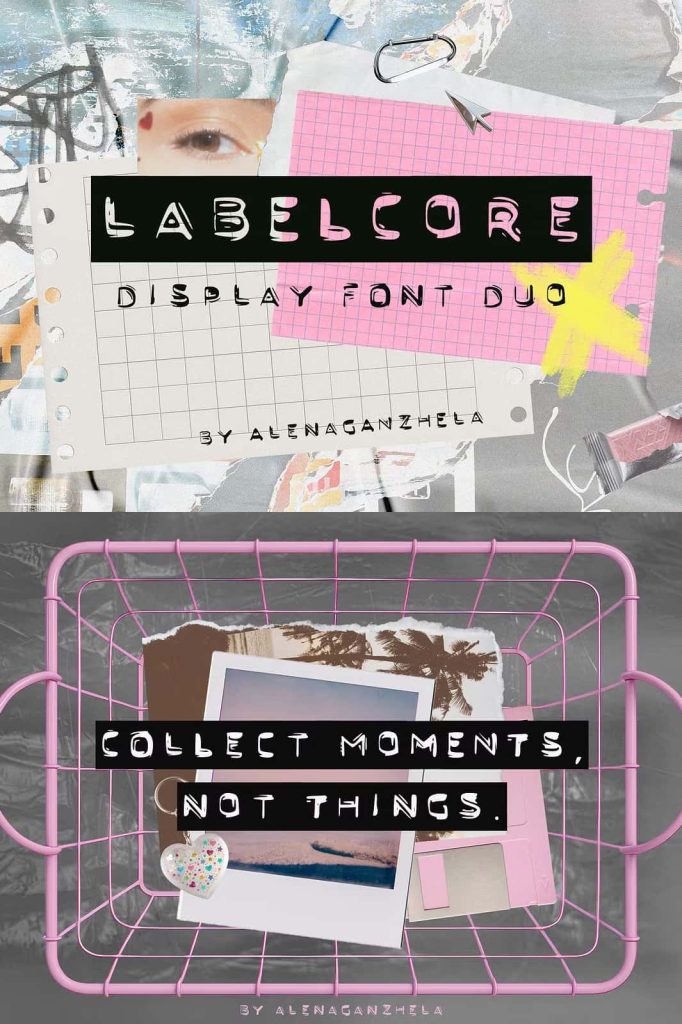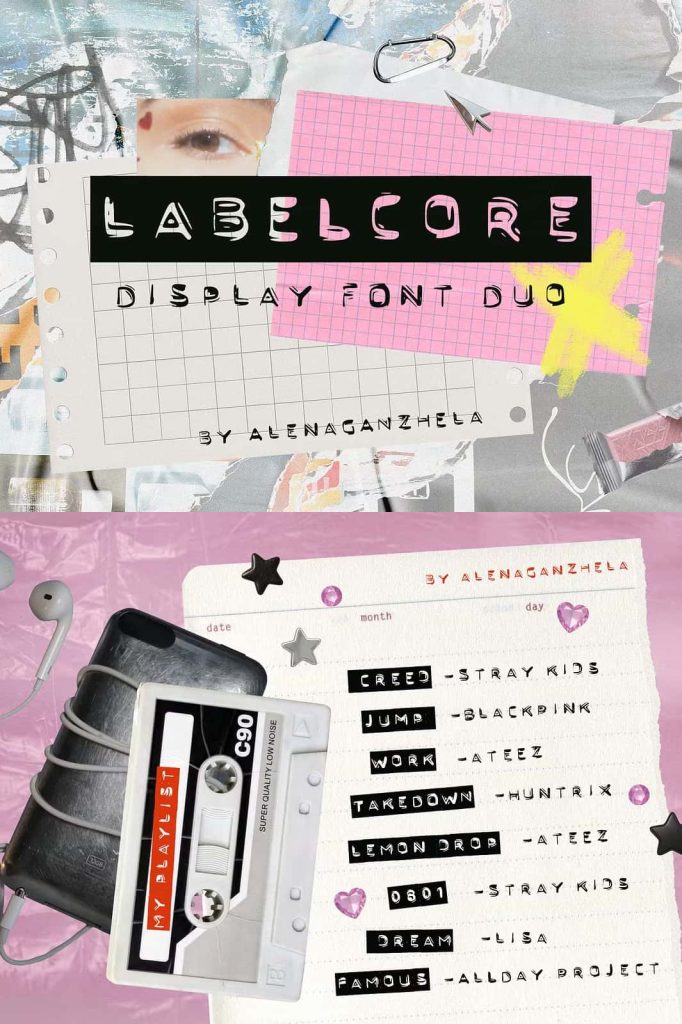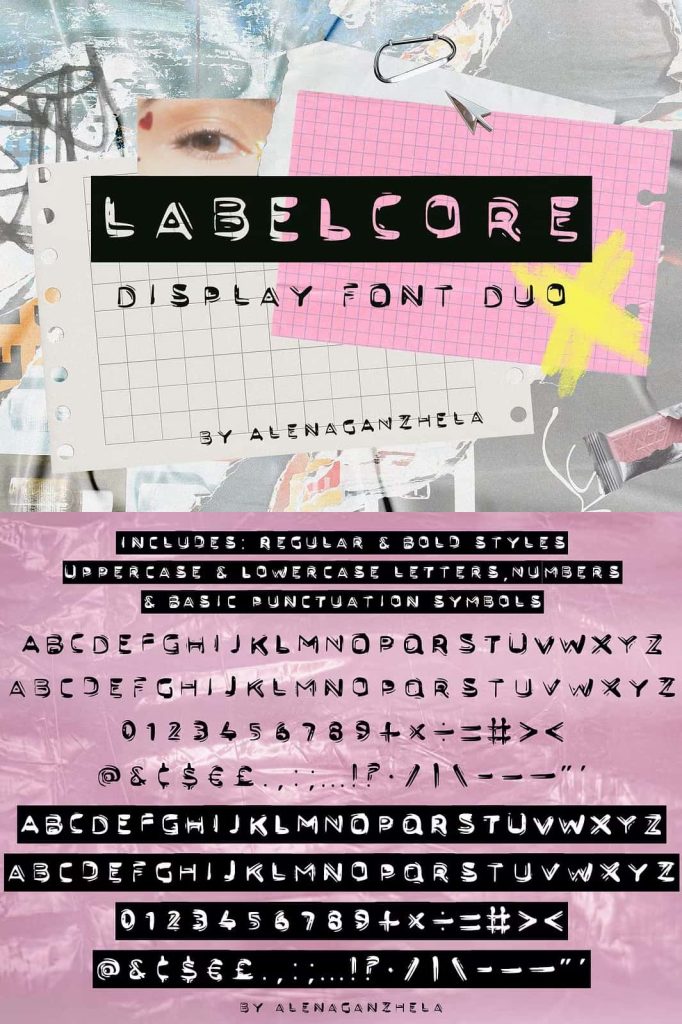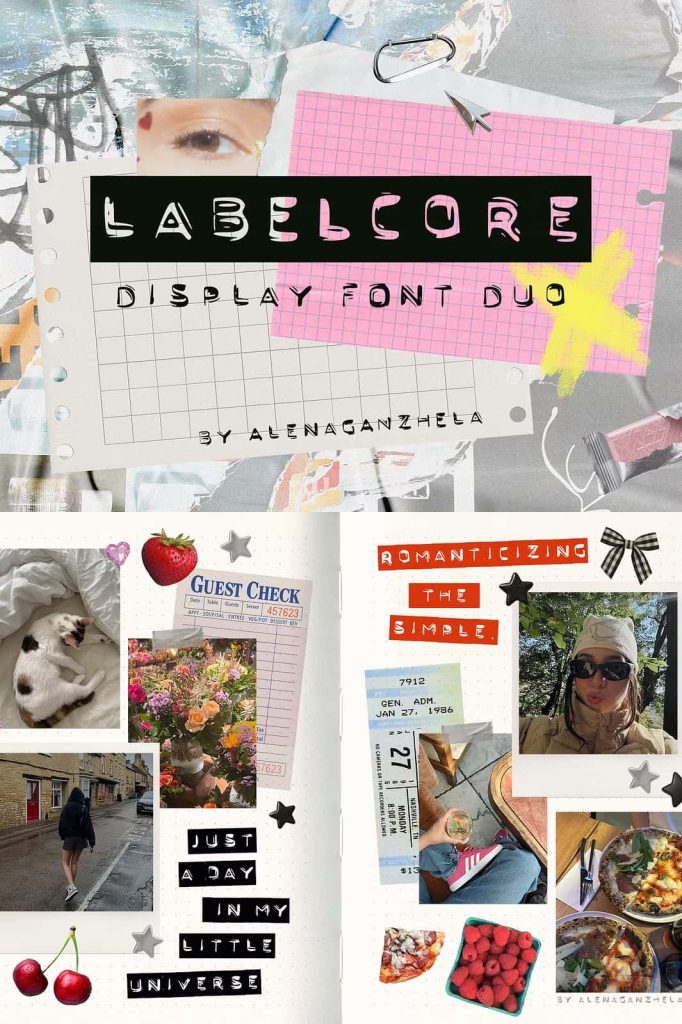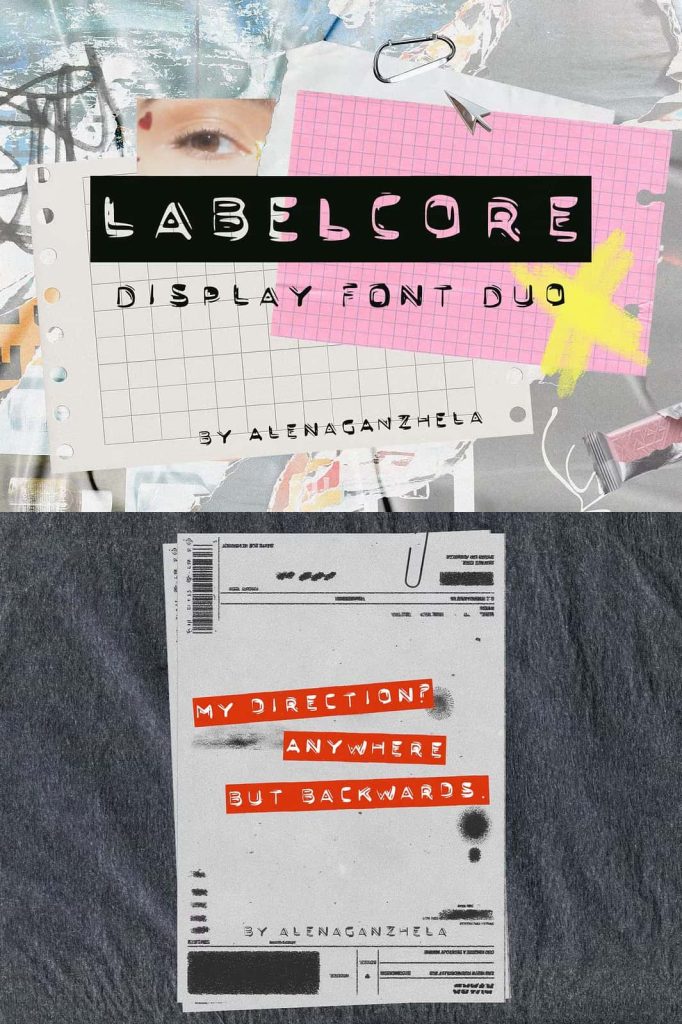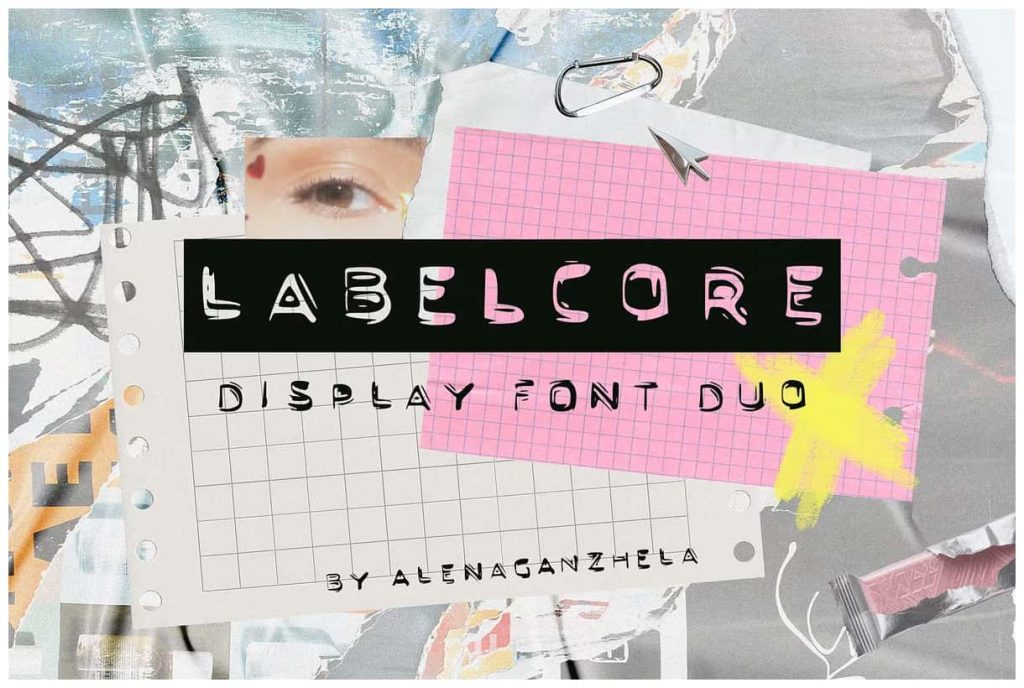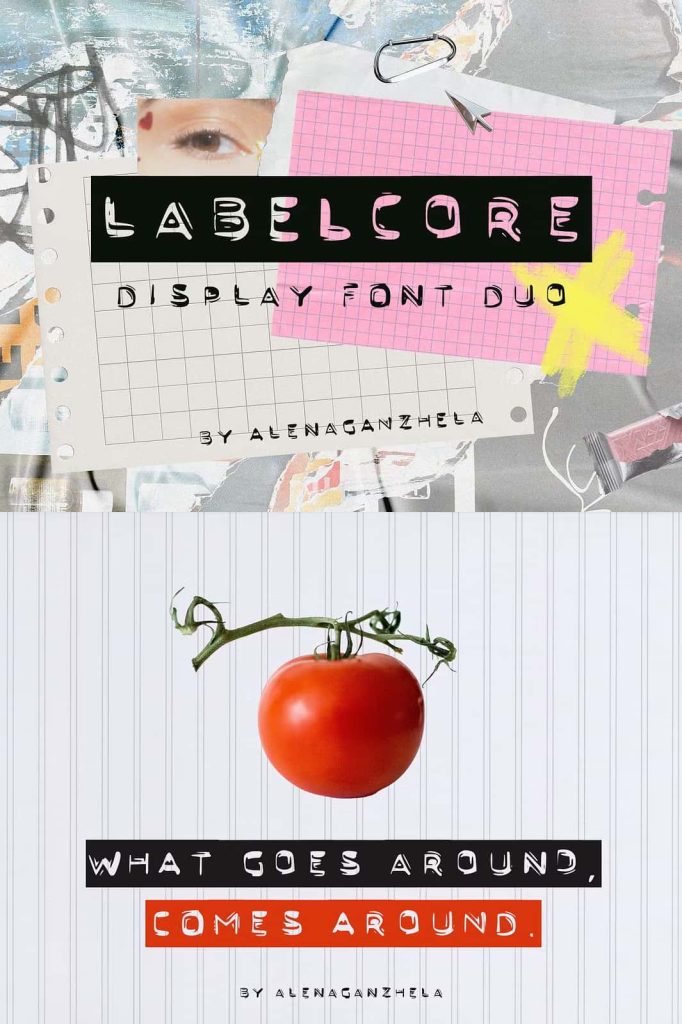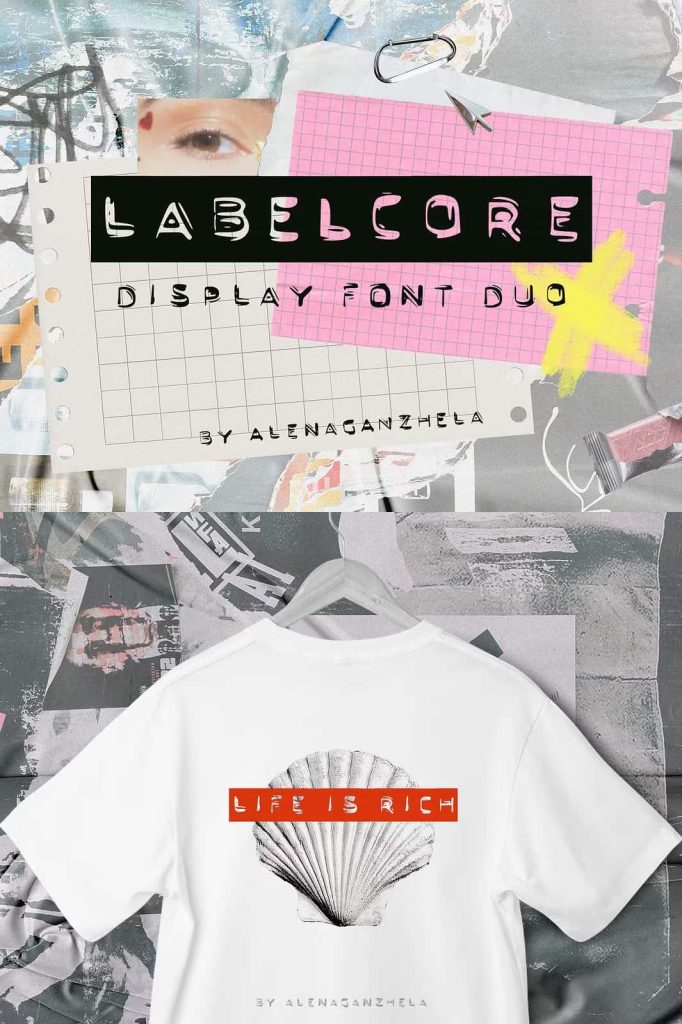
LABELCORE is a bold and sassy font duo inspired by vintage label makers and modern journaling aesthetics. It includes two styles — Regular and Bold, designed to perfectly mix and match for emphasis and attitude.